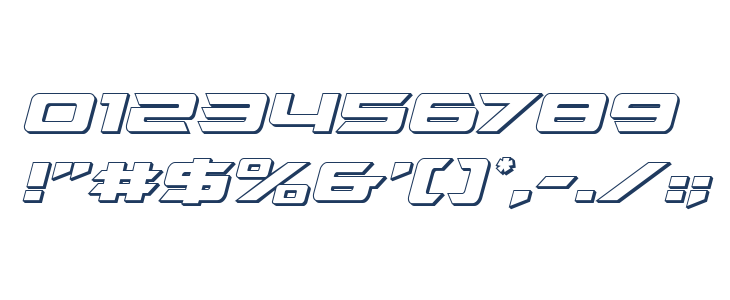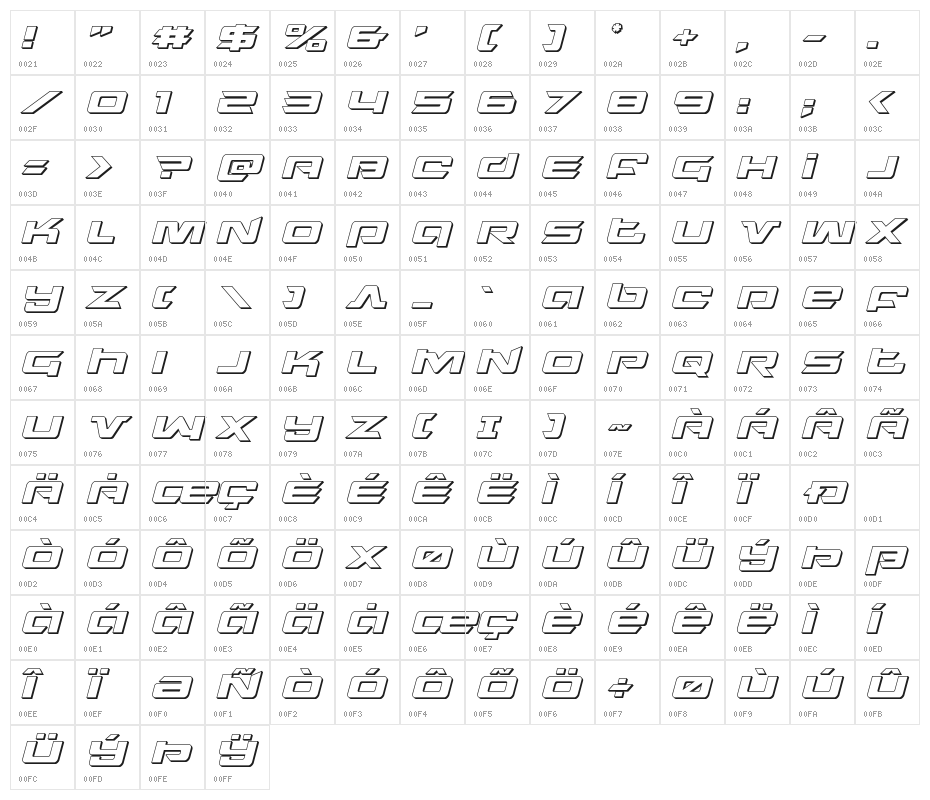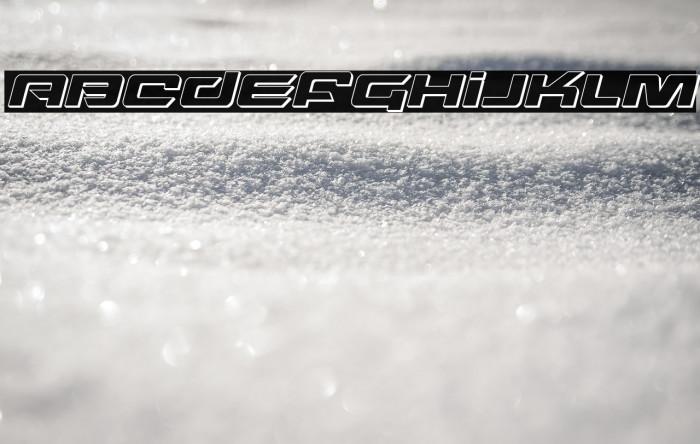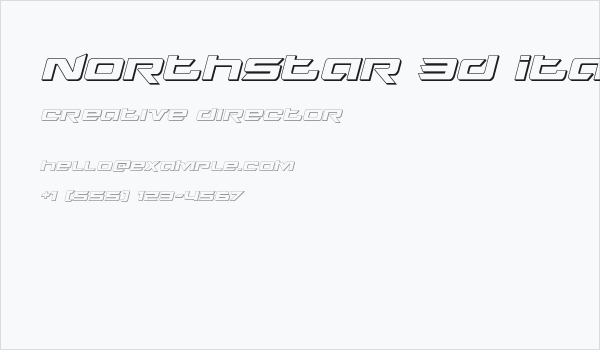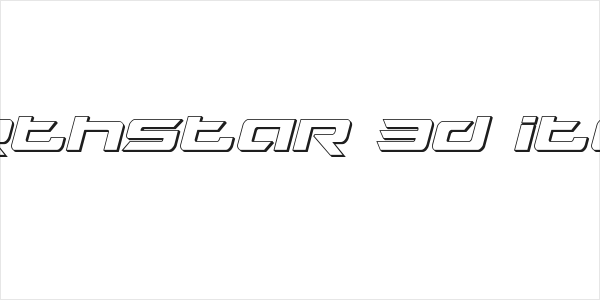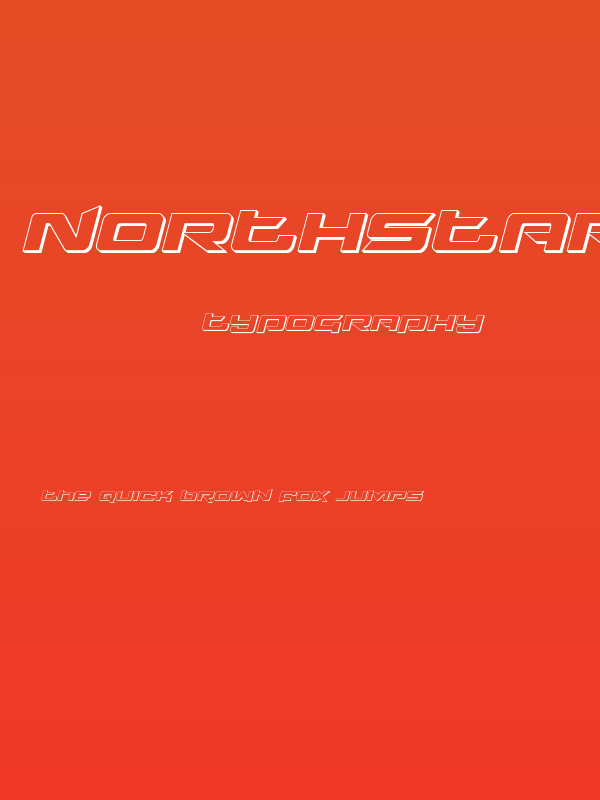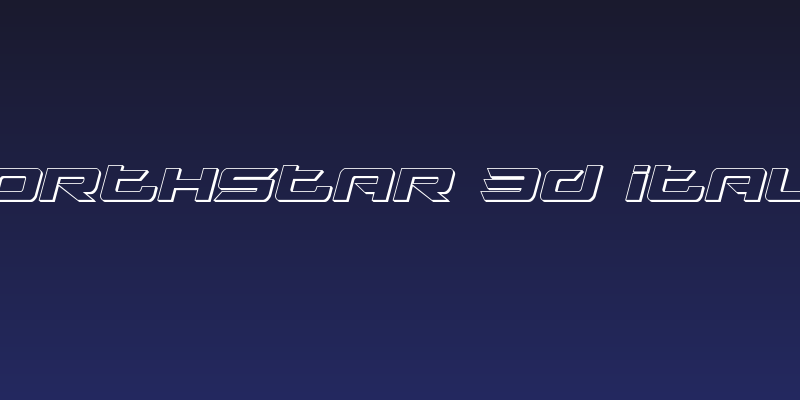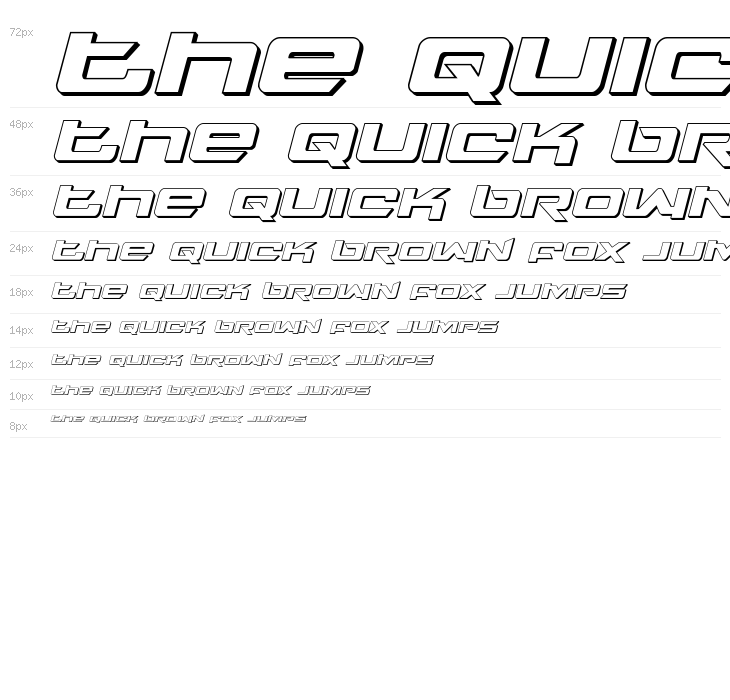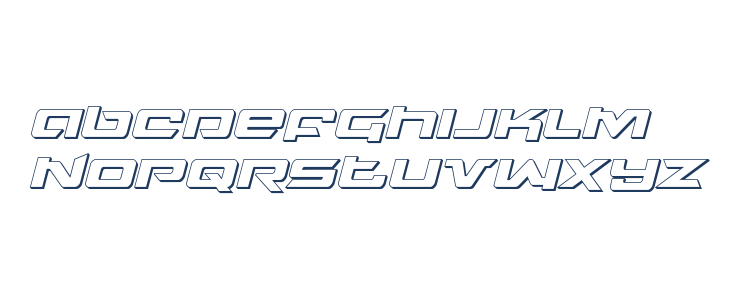
Northstar 3D Italic Font
Northstar 3D Italic Description
This font features a futuristic and dynamic 3D italic design, characterized by its bold and angular letterforms. The geometric shapes and sharp edges give it a modern and tech-inspired appearance. The characters are outlined, creating a sense of depth and dimension, which enhances its 3D effect. The font maintains a consistent stroke width, contributing to a uniform and cohesive look. Its unique style makes it stand out, suitable for projects that require a bold and eye-catching typeface.